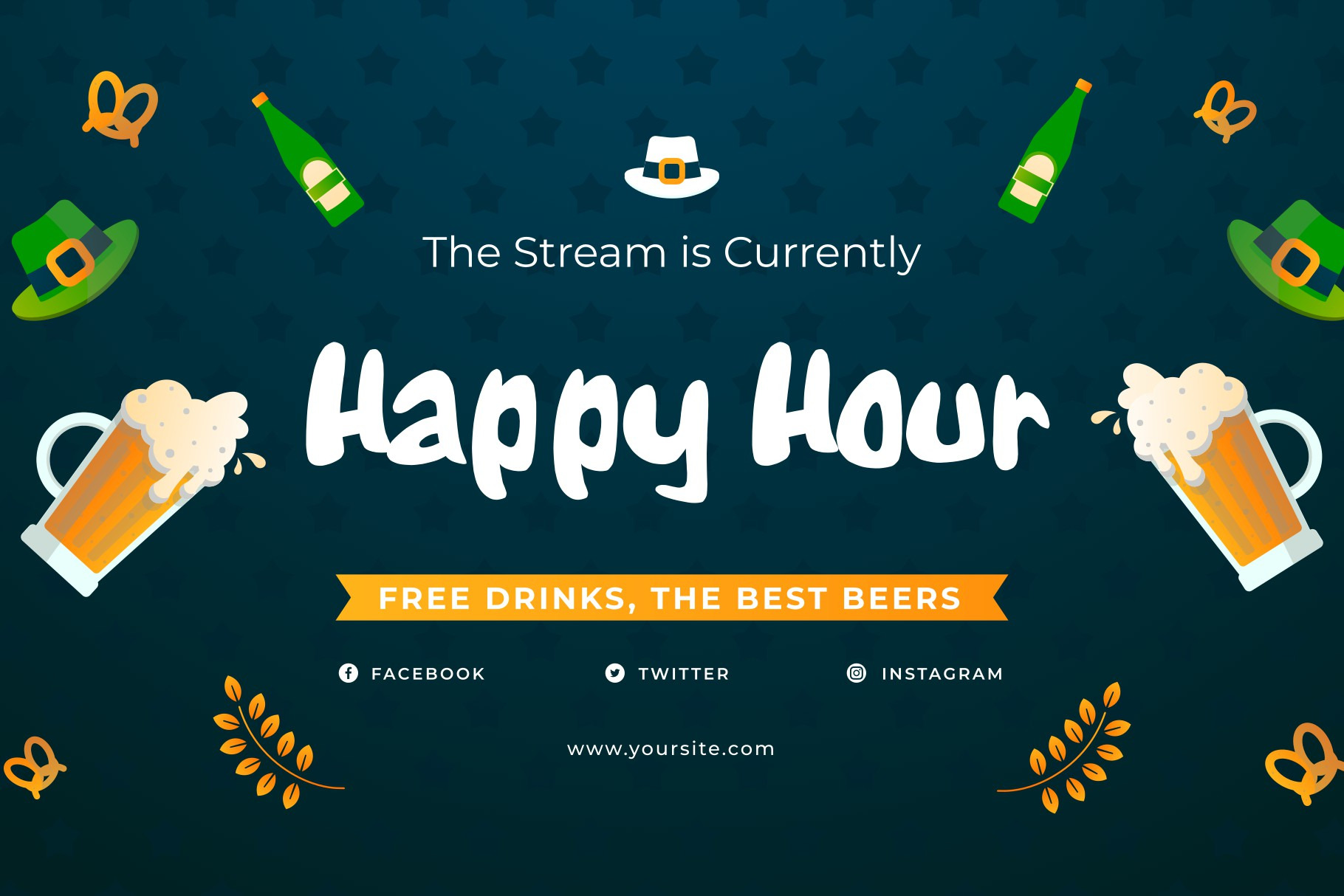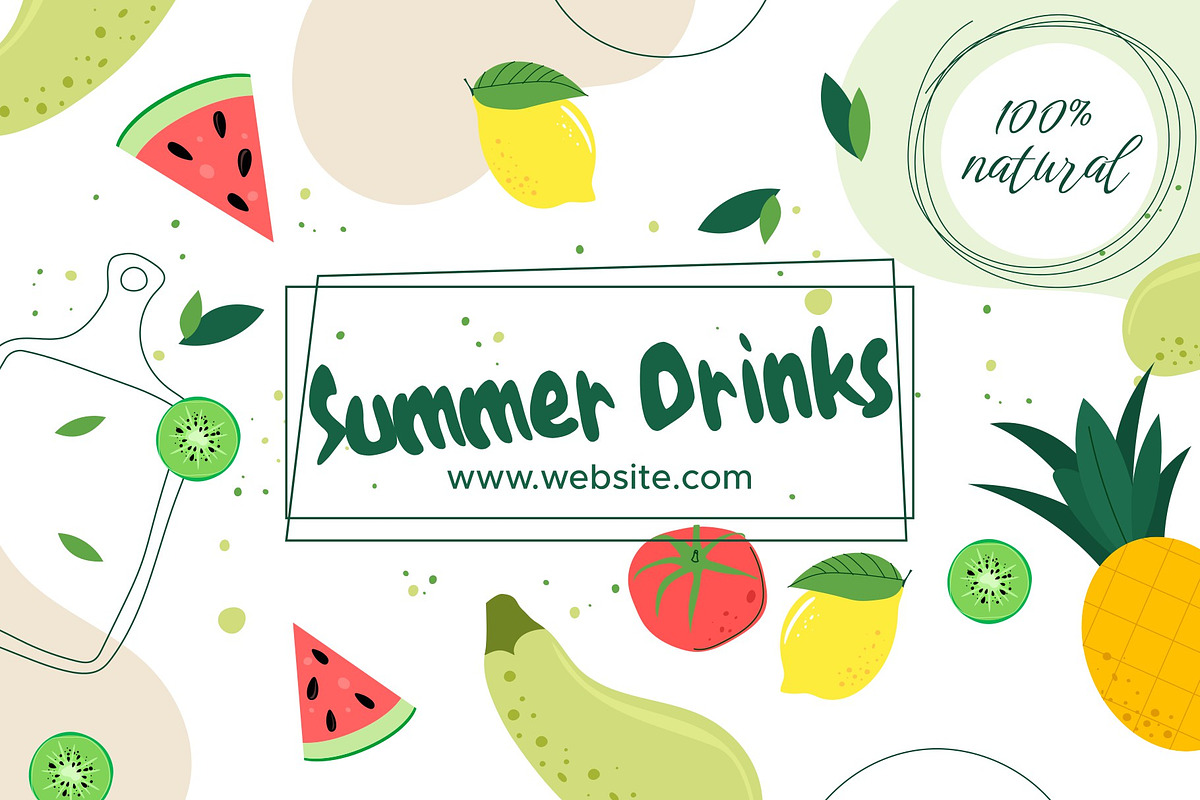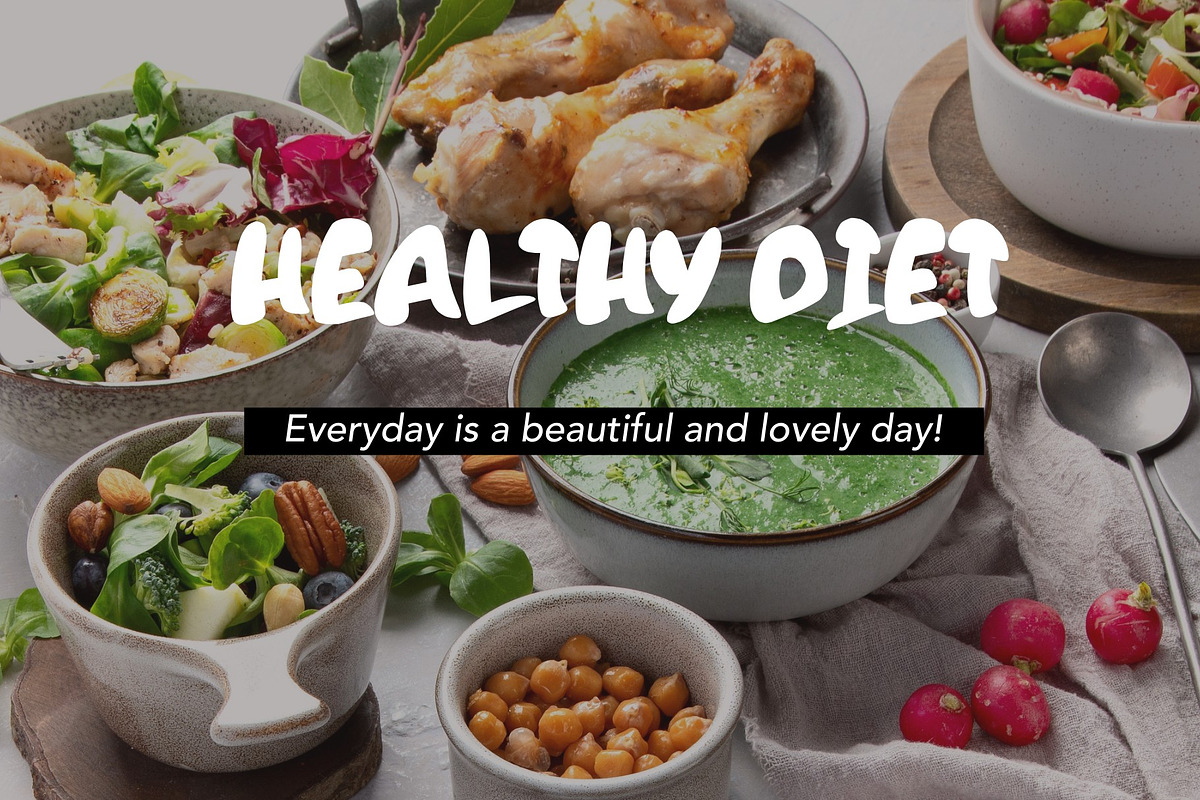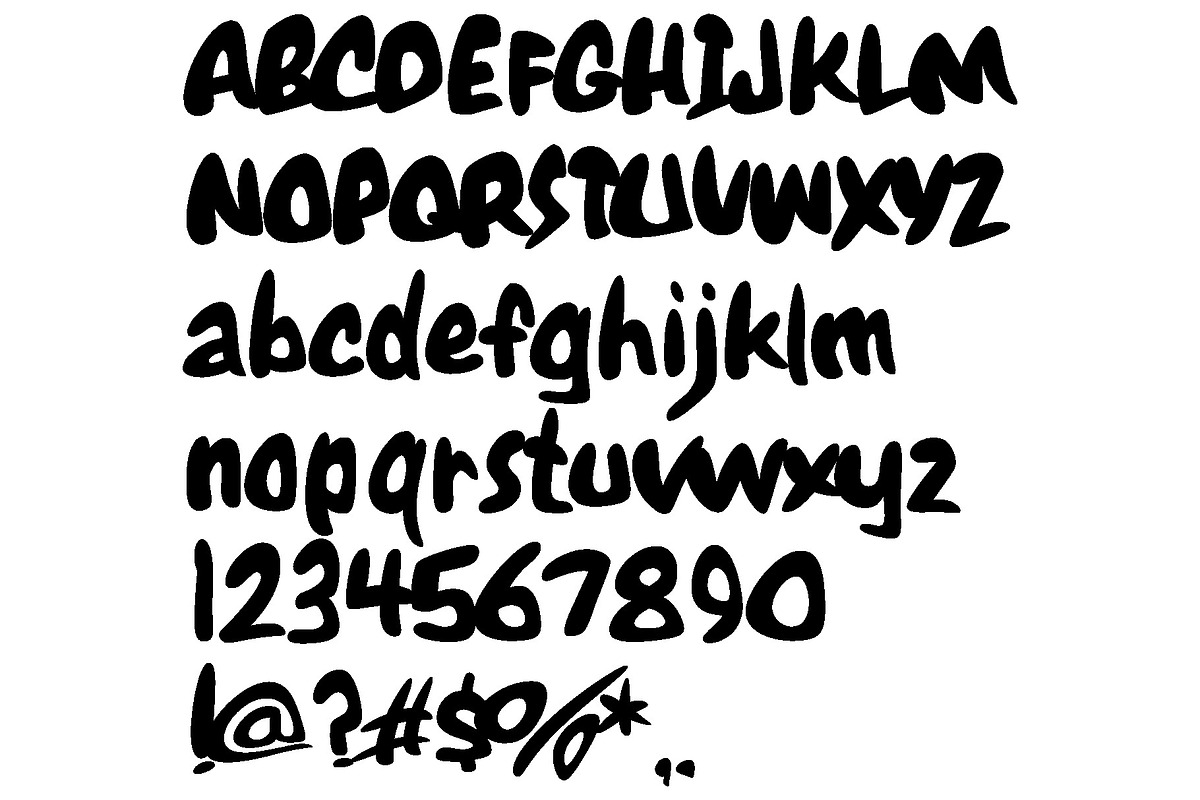
Dance - display font
This font is made for graphic design only(display font), please be
It is a display font that looks creepy and vintage and cute, with its creepy, rounded sans and a flowing, handwritten-style script, this playful pair brings just the right mix of bold and friendly. Perfect for product labels, greeting cards, social media posts, branding projects, logo designs, packaging, quotes, and more.